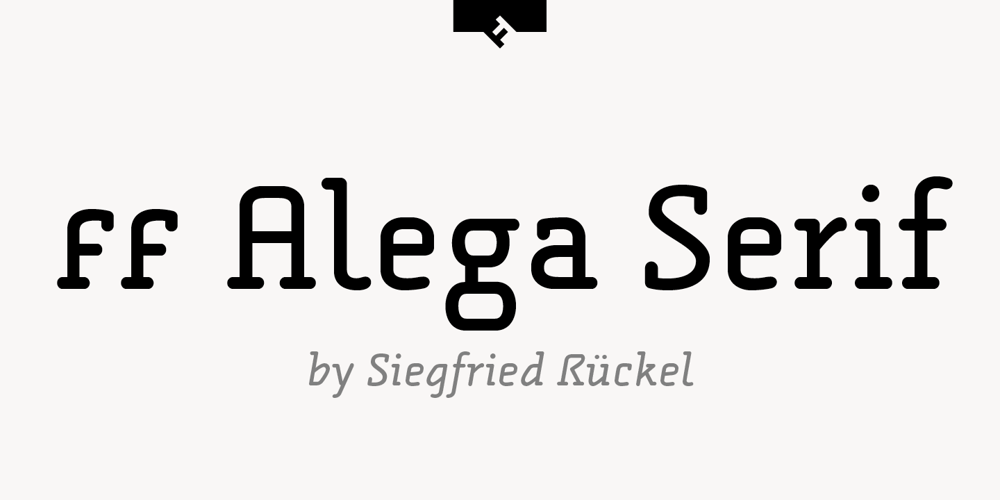
FF Alega Serif Font Family was designed by Siegfried Rückel and published by FontFont. FF Alega Serif contains 6 styles and family package options. German type designer Siegfried Rückel created this display, serif, and slab FontFont in 2003. The family has 6 weights, ranging from Light to Bold (including italics) and is ideally suited for advertising and packaging, logo, branding and creative industries as well as poster and billboard projects. FF Alega Serif provides advanced typographical support with features such as ligatures, small capitals, alternate characters, case-sensitive forms, and stylistic alternates. It comes with a complete range of figure set options – oldstyle and lining figures, each in tabular and proportional widths. This FontFont is a member of the FF Alega super family, which also includes FF Alega.